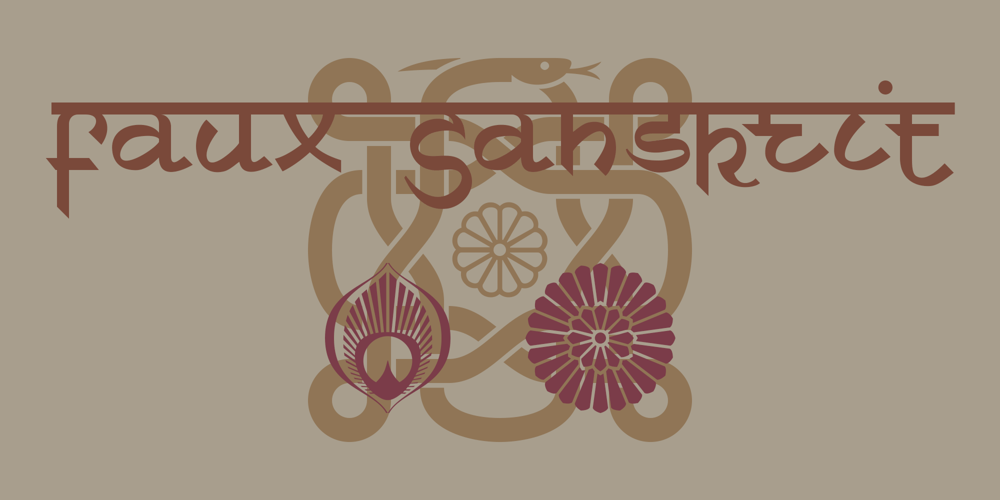
Faux Sanskrit Font Family was designed by Roger Vershen and published by Page Studio Graphics. Faux Sanskrit contains 1 styles and family package options. This simulated font is based on the characteristic Hindi calligraphy and includes upper and lower case alphabets, numerals, and a collection of Indian symbols and border components.